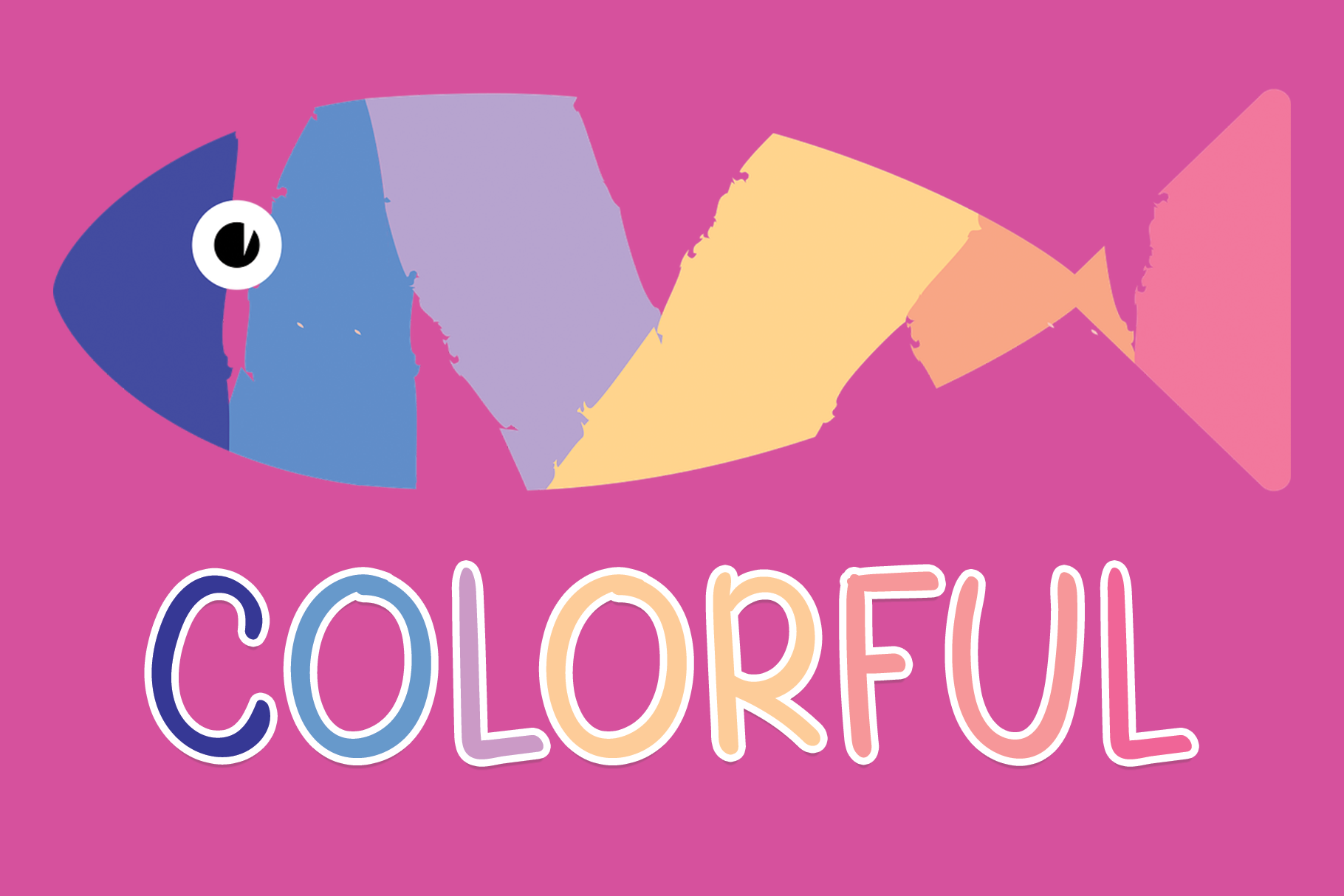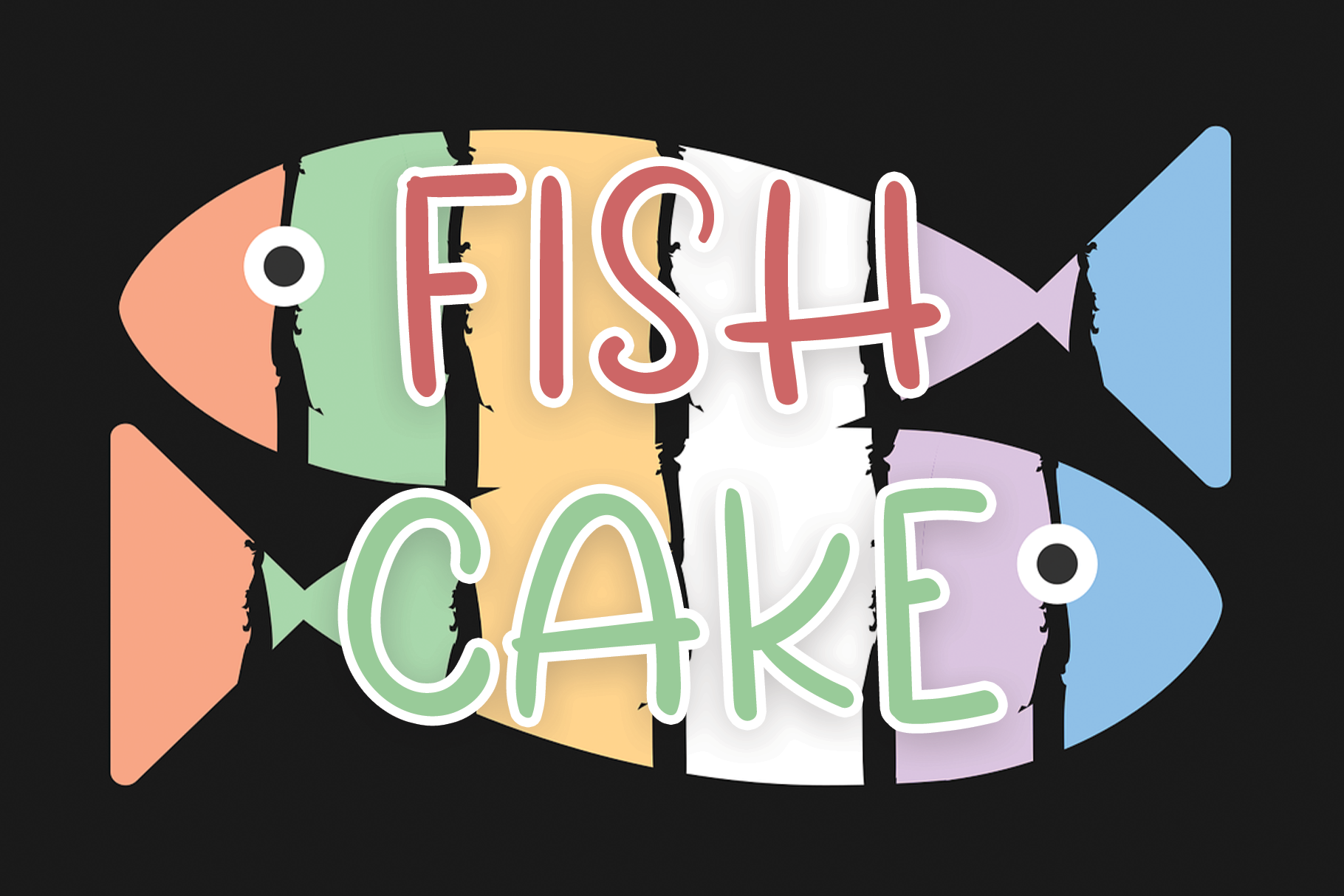
Water Color Font
Water Color Display Font
This is a cool, casual and neat outlined display font. No matter the topic, this font will be an incredible asset to your fonts’ library, as it has the potential to elevate any creation.